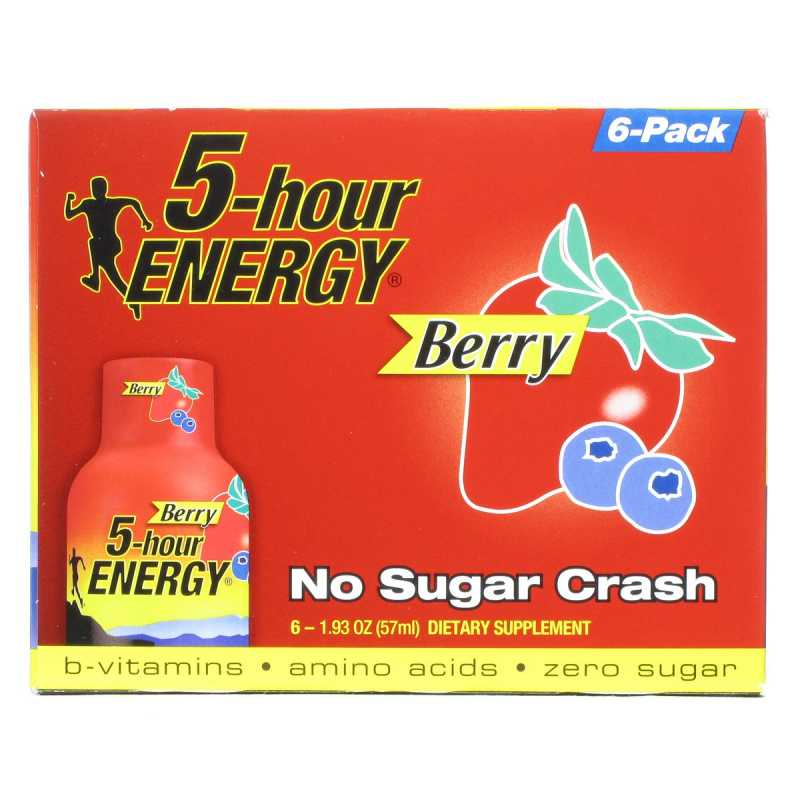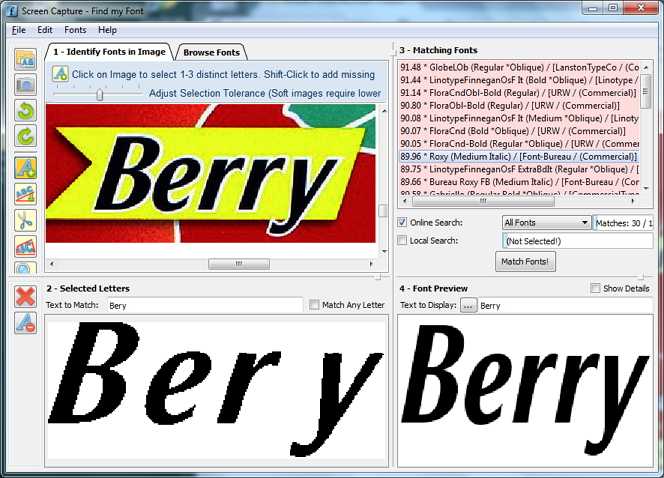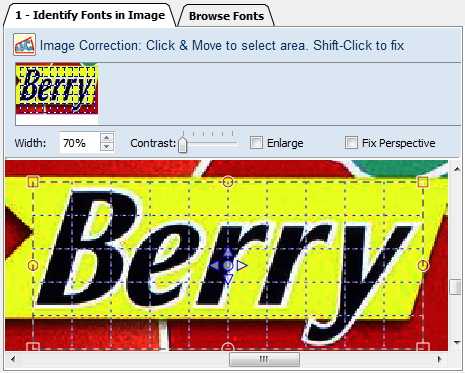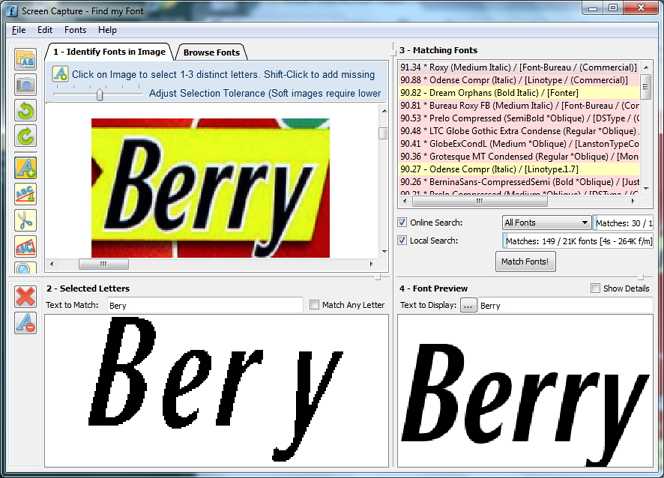
I am just curious here. I tried using these two images and WTF will not identify this font.
I know the font now but am curious if you guys can find it with these two images. The text I am looking for is Berry.
Similar is Metro Nova, but they used another "y" or modified it...
similar "y":
Well I got an answer else where as Roxy Medium Italic. I would say it is spot on but my ? was why WTF can not find this font.
Hmmm, thats a very good question... Sometimes new fonts or from (exclusive) fontfoundries FindMyFont has no archive.
But especially in this case, I'm wondering as you! Because Roxy is an "old" everywhere known font...
maybe FMF archives need updates?
First of all lets clear up what WTF means. Do you mean Find my Font? In this case we use the acronym FmF ;)
Why do you say that FmF does not identify the font? It does, but Roxy does not come up in the first place, it comes up 8th.
The reason Roxy does not come up first is that in the image the font has been expanded (stretched horizontally). Find my Font tries to match fonts that have the expanded width and that's why it considers other fonts to be more relevant.
To fix that, you may use the Image Correction tool as shown below to compress the image back to its original width:
Now if you try to identify the font on the new (compressed) image, Roxy comes up first:
Yes my bad I meant FMF. But when I used these images I can tell you roxy never came up in the list for me. I cleared out the image a few times and tried again and again no roxy in the list. All I can say is It must be very very touchy the way the image is put in. That is where most of the troubles I find is the images don't load good for me. I try enlarging changing contrast and stuff it just seems there needs to be some work there to make it easier. Or I just suck at using FMF. :ohmy:Thanks for the response.